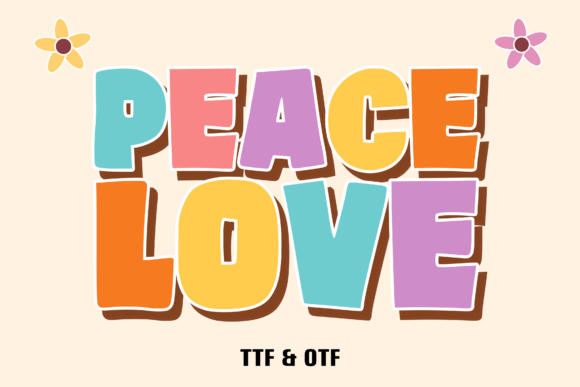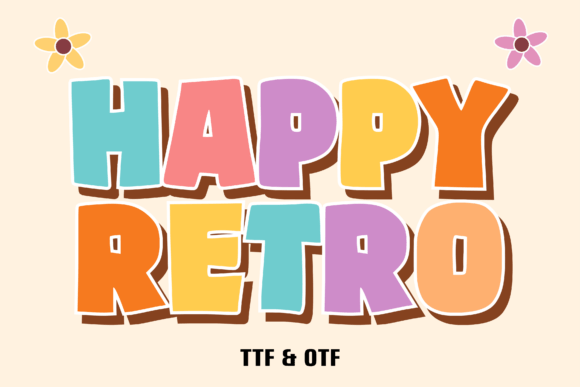
The Perfect Font for a Groovy Design
Do you remember that moment when you stumbled upon the perfect font that made your design pop? For many designers, that moment is what makes all the hard work worth it. And if you’re looking for a font that will bring a smile to your audience’s faces, you’re in luck.
Meet Groovy Font, a fun and cheerful typeface that’s sure to add a playful touch to your designs. With its cute characters and energetic feel, Groovy Font is perfect for projects that need a fun and lively vibe. Whether you’re creating a logo, social media post, or advertisement, Groovy Font is a great choice to make your design stand out.
Groovy Font Key Features
- Font Family: Groovy Font is a unique sans-serif font family designed for modern and creative projects.
- Character Set: The font family includes over 200 characters, including Latin, Cyrillic, and Greek alphabets, as well as punctuation and symbols.
- Unique Characteristics: Groovy Font features a distinctive, hand-drawn feel with subtle irregularities and a modern, edgy aesthetic.
Groovy Font Review
Overall, I’m quite impressed with Groovy Font, a fun and energetic sans-serif typeface. ✨ It’s perfect for creating eye-catching headings and titles, especially in the context of a retro or psychedelic design. The bold and colorful feel of the font is contagious and can instantly elevate your design to a more vibrant level.
Here are some of the things I like about Groovy Font:
- Highly customizable with multiple weight options, making it suitable for various design scenarios
- Supports a wide range of languages, ensuring it’s a versatile choice for global audiences
- Great for creating attention-grabbing headlines and titles, thanks to its unique and playful style
- May not be suitable for formal or professional designs, as its playful nature can come across as unprofessional
- Lack of subtle texture or nuance in some of the font weights, which can make it feel a bit one-dimensional
- May not be the best choice for long blocks of text, as its unique style can be overwhelming when used extensively
Overall, I think Groovy Font is a great addition to any designer’s toolkit, but it’s essential to use it judiciously and in the right context to get the most out of its unique charm.
Tips for Getting the Most Out of Groovy Font
Here are some tips to help you get the most out of Groovy Font:
- Experiment with different font sizes and styles to achieve the desired effect.
- Combine Groovy Font with other creative elements, such as graphics and images, to create a unique design.
- Use Groovy Font to add a touch of personality to your designs and stand out from the crowd.
Alternatives to Groovy Font
Great Vibes Font is a beautiful, modern script font ideal for creating a sense of elegance and sophistication. It’s perfect for wedding invitations, fashion brands, and luxury products. Great Vibes Font has a similar playful feel to Groovy Font but is more refined and polished.
Comparison: Great Vibes Font is more versatile and suitable for a wider range of designs, while Groovy Font is more suited for retro or vintage-themed projects.
Carolyna Pro Font is a modern, elegant script font designed for high-end branding and advertising. It’s perfect for luxury fashion, beauty, and lifestyle brands. Carolyna Pro Font has a similar flowy feel to Groovy Font but is more sophisticated and high-end.
Comparison: Carolyna Pro Font is more suitable for luxury brands, while Groovy Font is more suited for creative or artistic projects.
Alex Brush Font is a beautiful, elegant script font ideal for creating a sense of warmth and personality. It’s perfect for branding, advertising, and editorial designs. Alex Brush Font has a similar hand-drawn feel to Groovy Font but is more refined and polished.